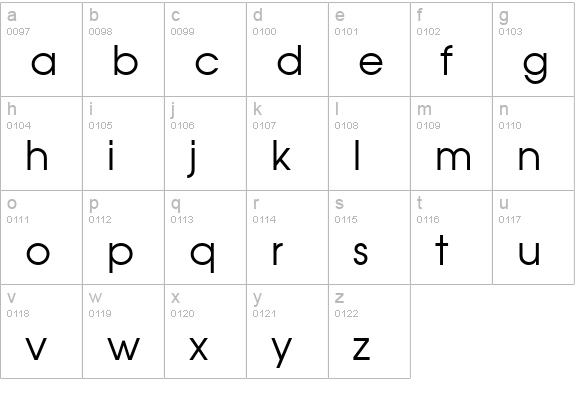
Introducing Trendex SSi, a visually captivating font that effortlessly blends modernity with timeless elegance. This font is a true embodiment of sophistication, making it the perfect choice for any design project seeking to leave a lasting impression. Trendex SSi boasts a unique combination of smooth curves and sharp angles, resulting in a harmonious balance that is pleasing to the eye. Its carefully crafted letterforms exude confidence and versatility, allowing it to adapt seamlessly to a wide range of creative applications. One of the standout features of Trendex SSi is its extensive character set, which includes a variety of stylistic alternates and ligatures. These additional glyphs offer endless possibilities for customization, enabling designers to create truly personalized and one-of-a-kind typographic compositions. But what makes Trendex SSi truly exceptional is that it is not only a remarkable font, but also freely available to download at FontsMarket.com. Yes, you read that right – this premium quality font can be yours at absolutely no cost. Whether you are a professional designer or an aspiring creative enthusiast, this is an opportunity that should not be missed. With Trendex SSi, you can elevate your designs to new heights without breaking the bank. Its effortless elegance combined with its affordability makes it an invaluable asset to any creative arsenal. So why wait? Head over to FontsMarket.com and experience the boundless potential of Trendex SSi today. Unleash your creativity and make a lasting impression with this exceptional font.